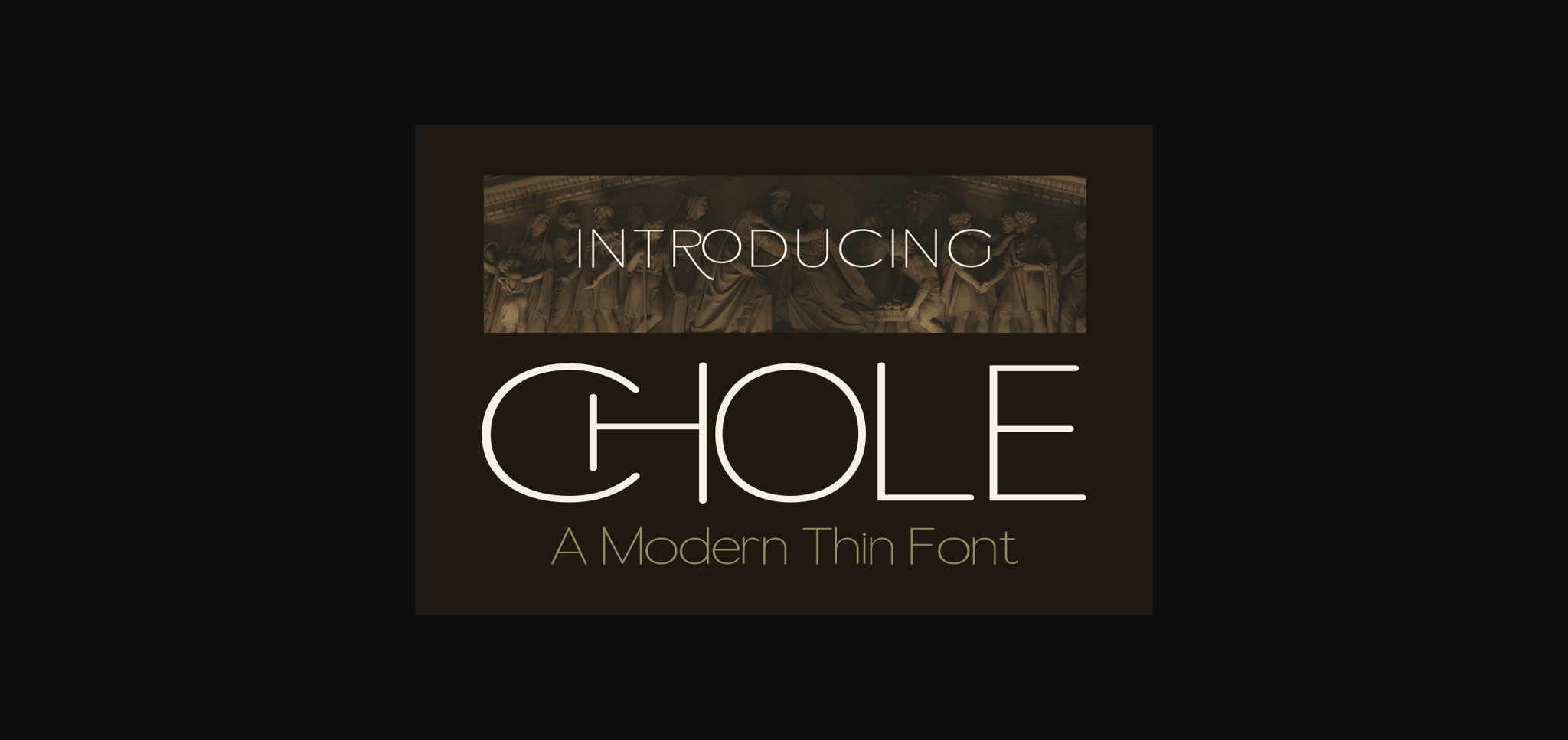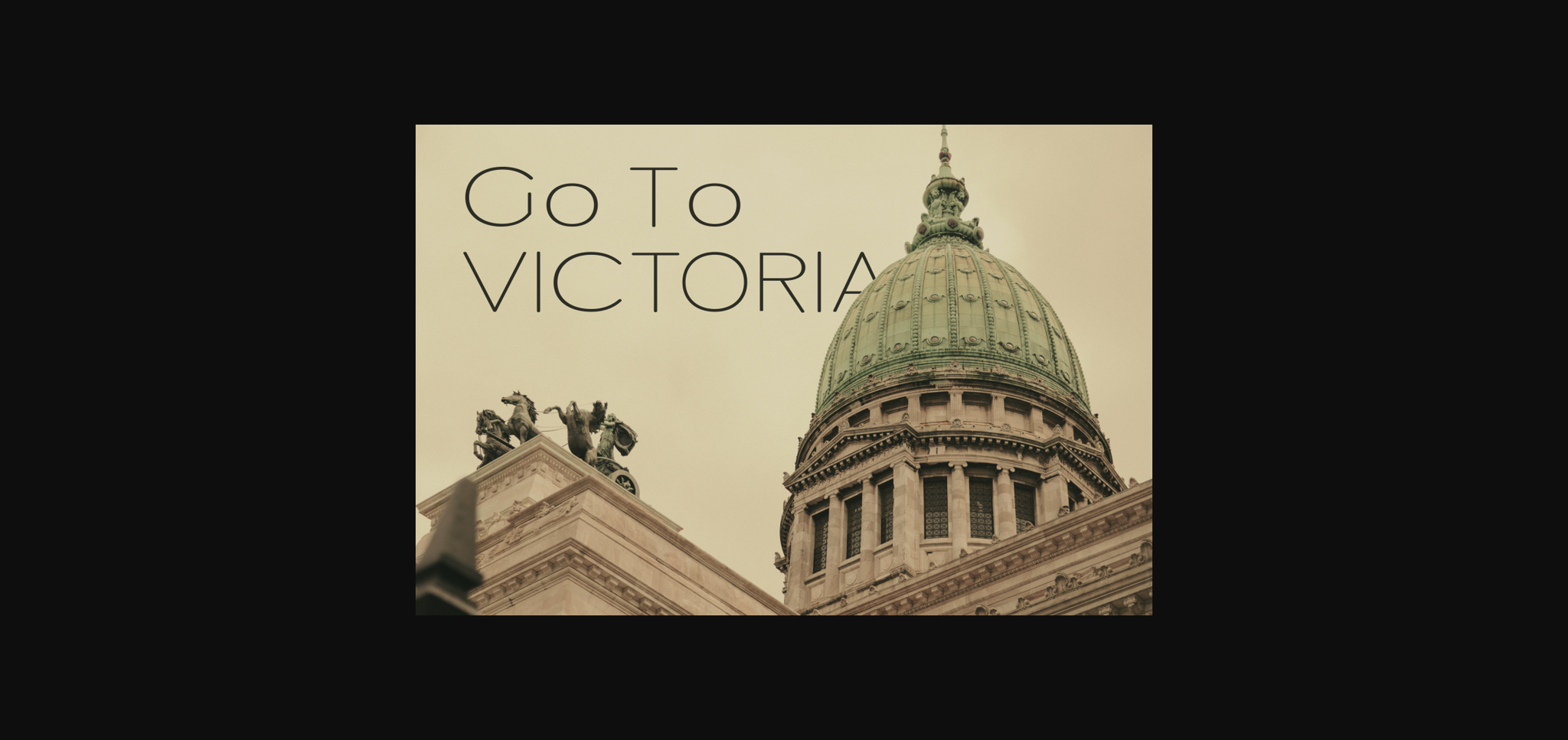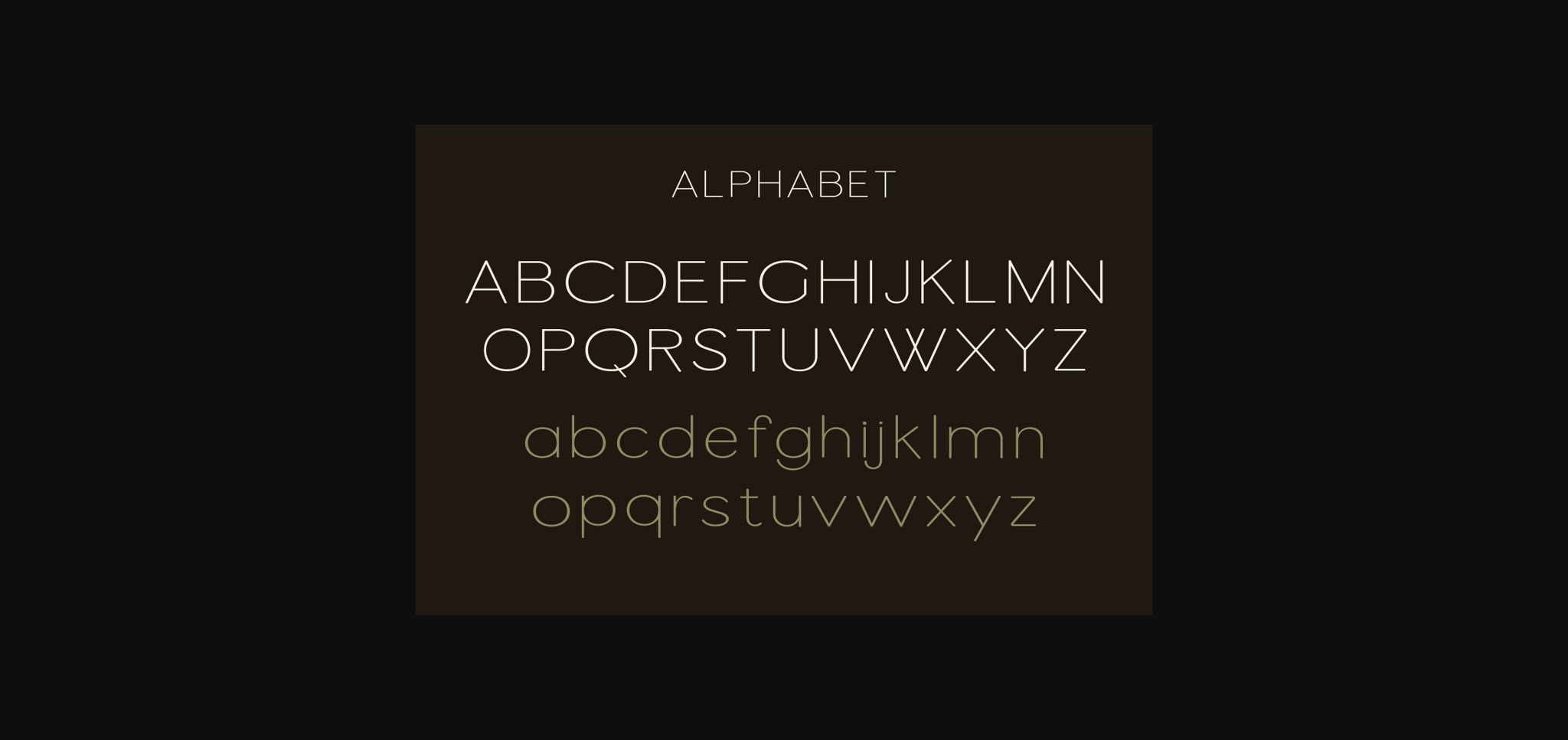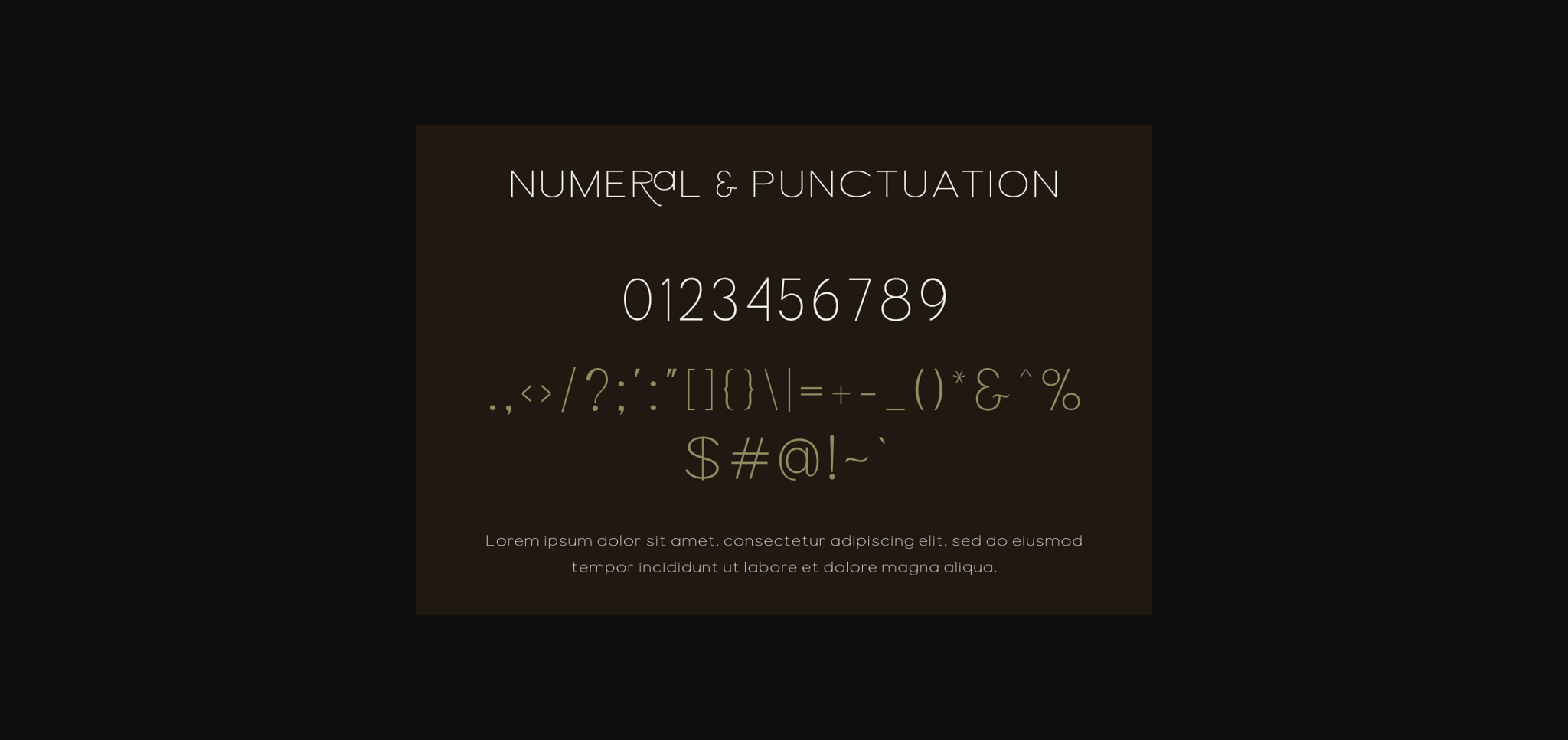
Chole Font
About Chole Font
Meet CHOLE, your go-to font for a sleek and modern touch. CHOLE is a thin sans-serif font that effortlessly combines simplicity with a contemporary edge. Its clean lines bring a fresh and minimalist vibe to your projects, making it perfect for a range of design applications. Whether you’re working on a stylish headline, a sleek logo, or a modern layout, CHOLE’s modern thin design adds a touch of sophistication to your typography. Simple yet stylish, CHOLE is the perfect choice for a clean and modern aesthetic.